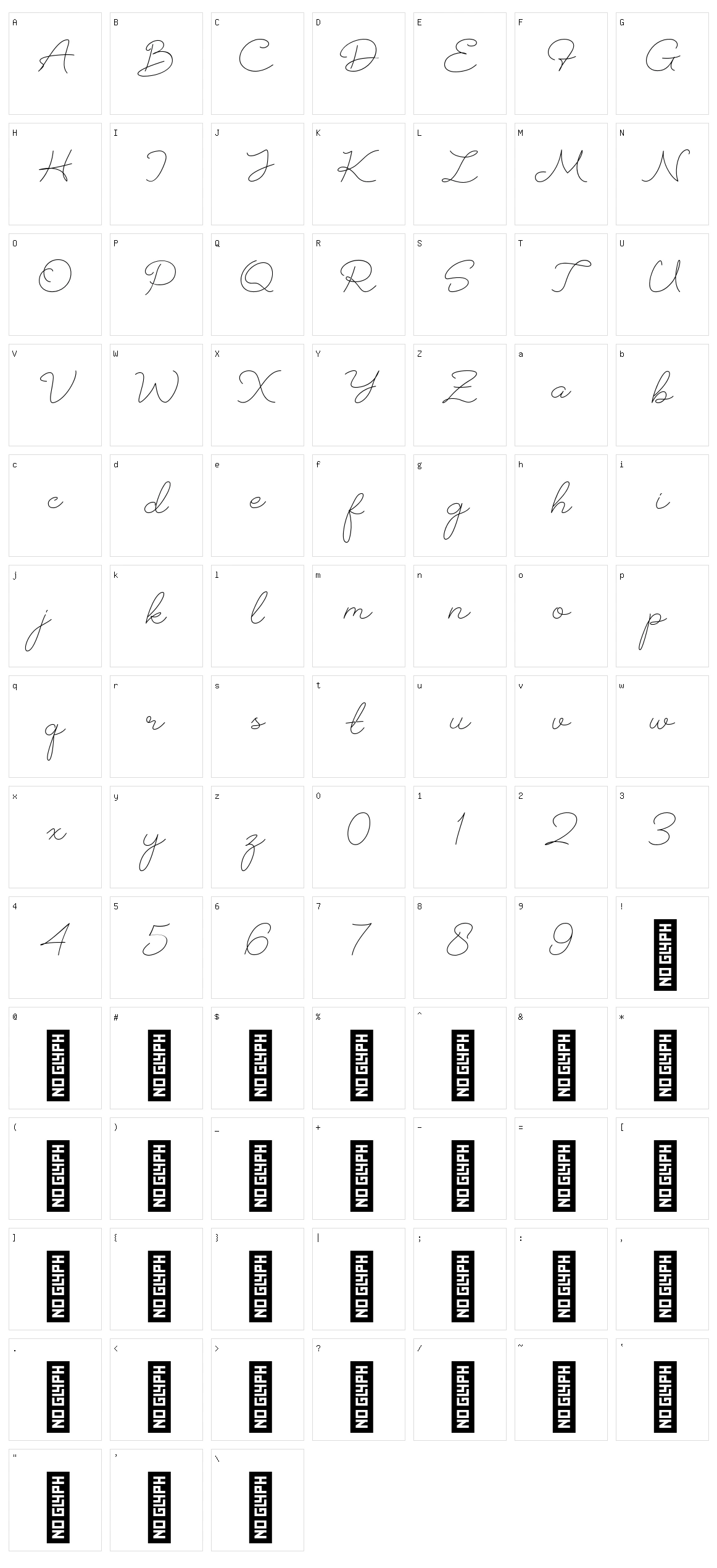
The free font Pertiway is carefully designed by Darman Kadir, showcasing a thoughtful balance of creativity and usability and falls under the Script font style. When you download the ZIP file, it contains only 17.18 KB of font files, making it lightweight and quick to download. Please review the license details below to understand permitted usage and distribution rights. If license information is not available, we recommend using this font for personal projects only or contacting the author directly for commercial usage permissions.